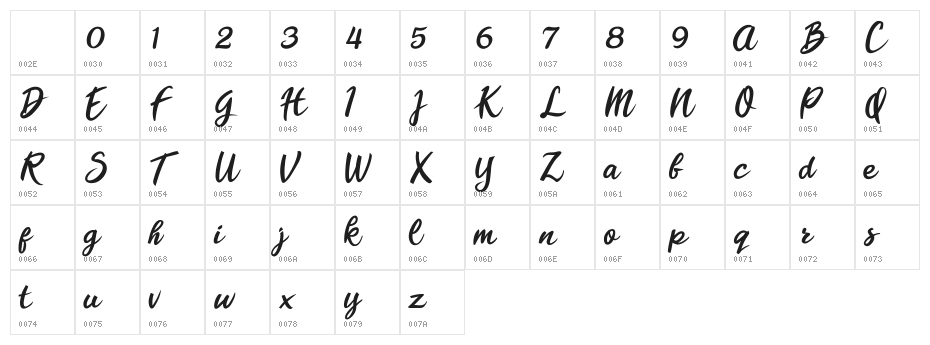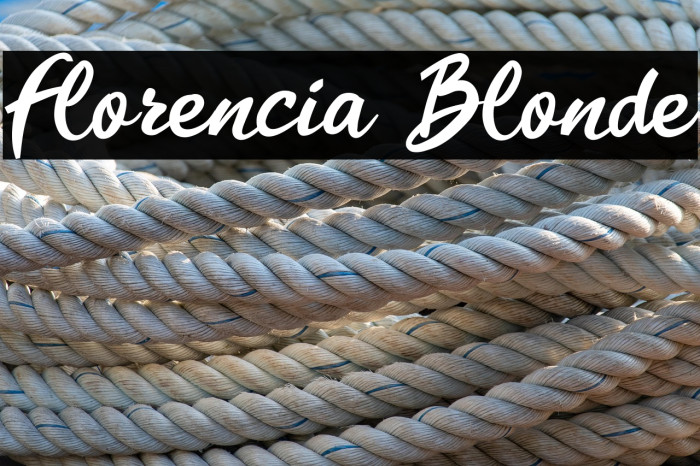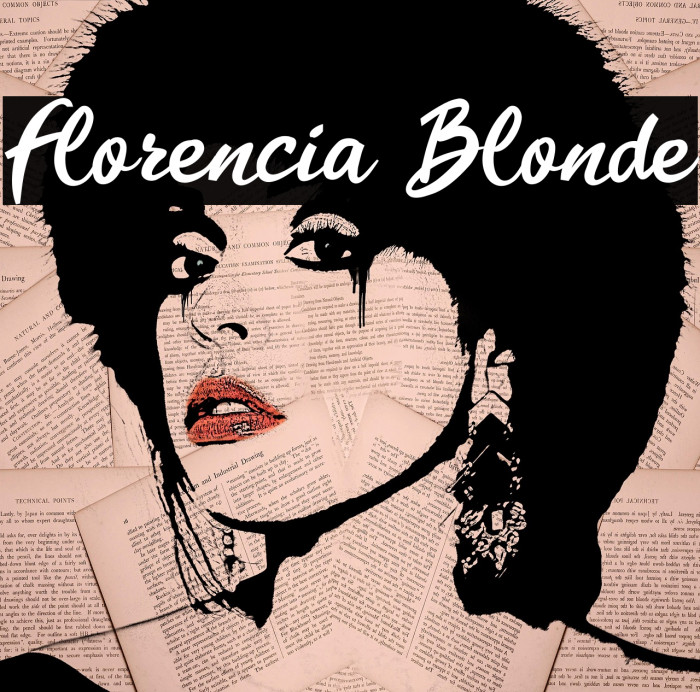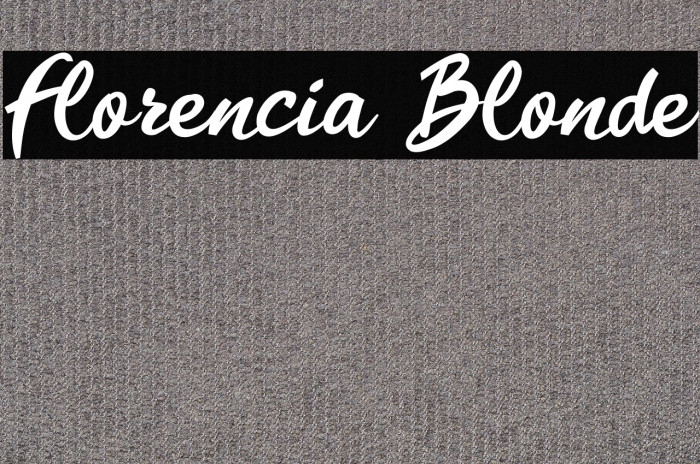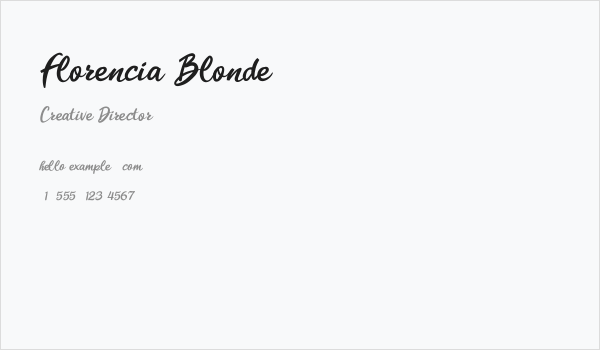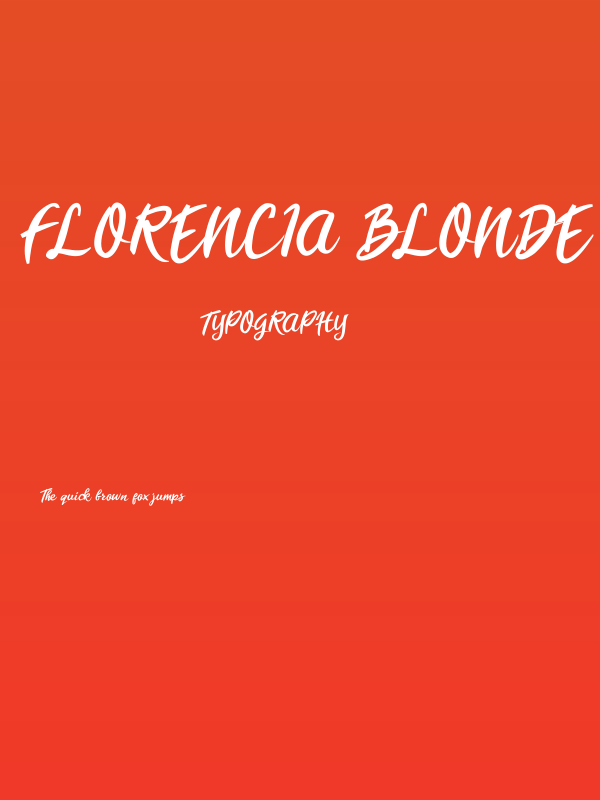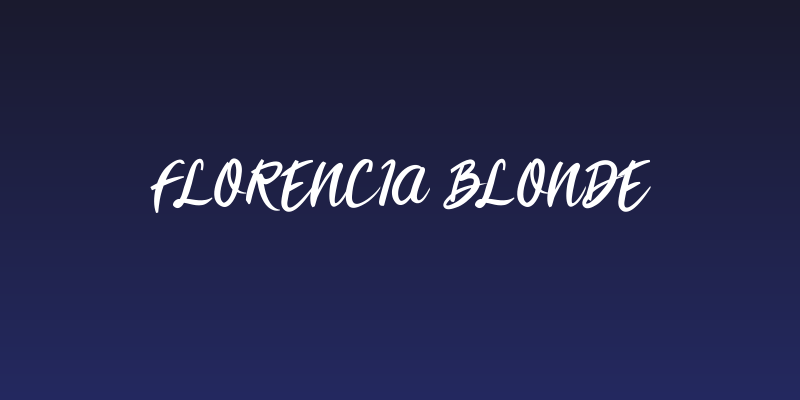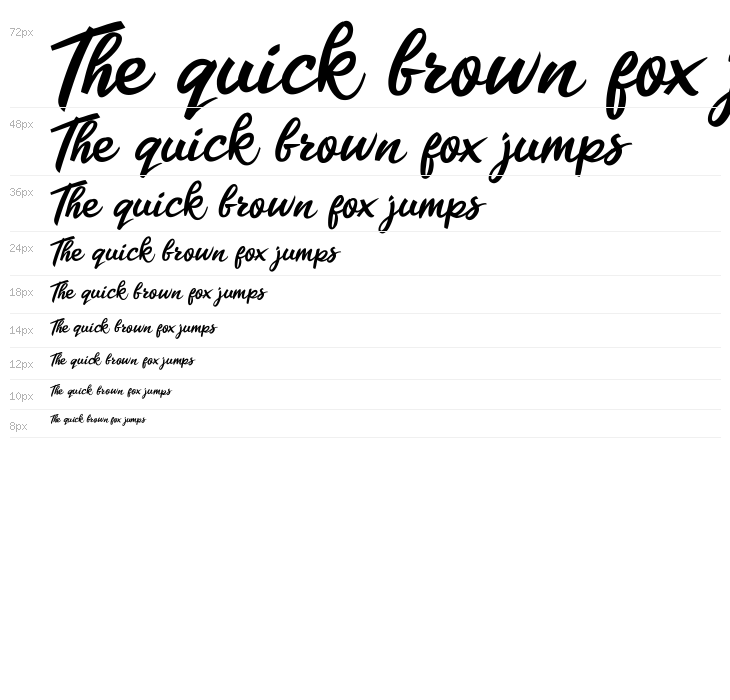
Florencia Blonde Font
Florencia Blonde Description
This font features a dynamic and flowing script style, characterized by its elegant and fluid letterforms. The strokes are smooth and connected, giving it a handwritten appearance that is both stylish and approachable. The uppercase letters exhibit a sense of grandeur with their sweeping curves, while the lowercase letters maintain a consistent rhythm and balance. The numbers are well-integrated into the design, matching the overall aesthetic with their rounded and flowing shapes. This font is versatile, suitable for a variety of creative projects where a personal and artistic touch is desired.
| Overall Style | Elegant, Artistic |